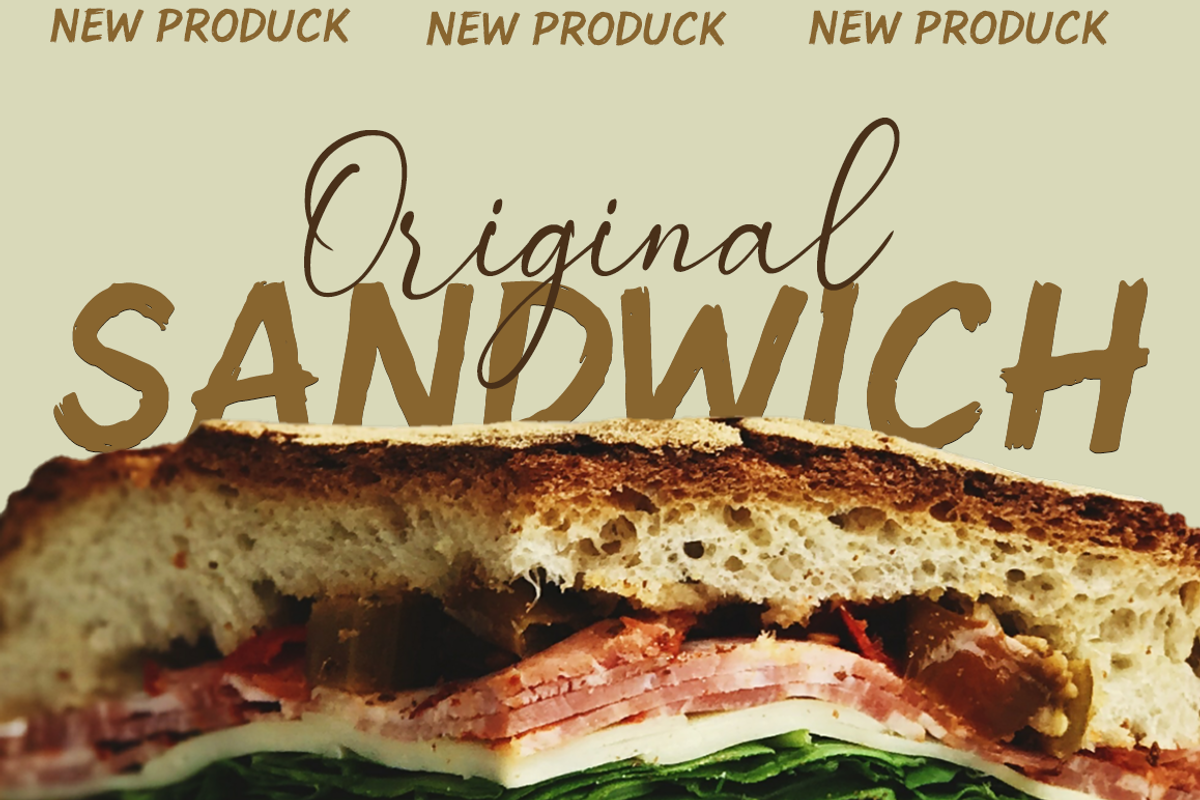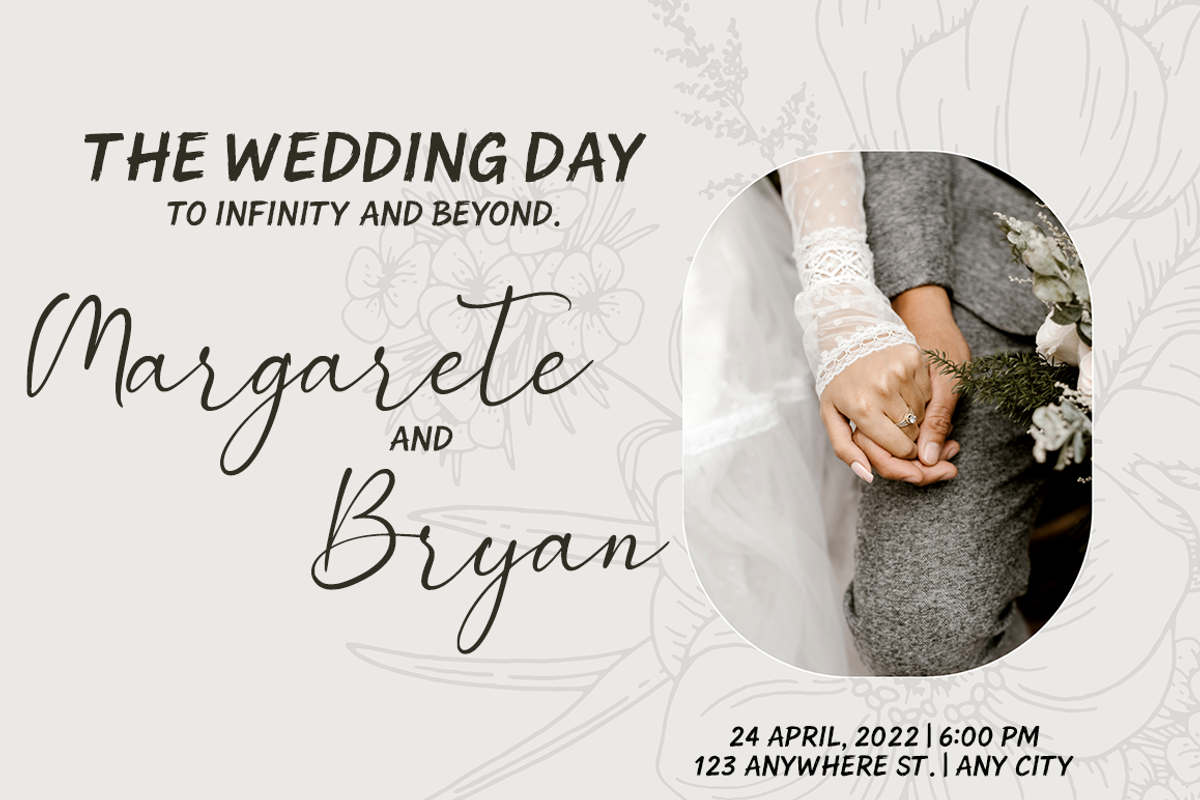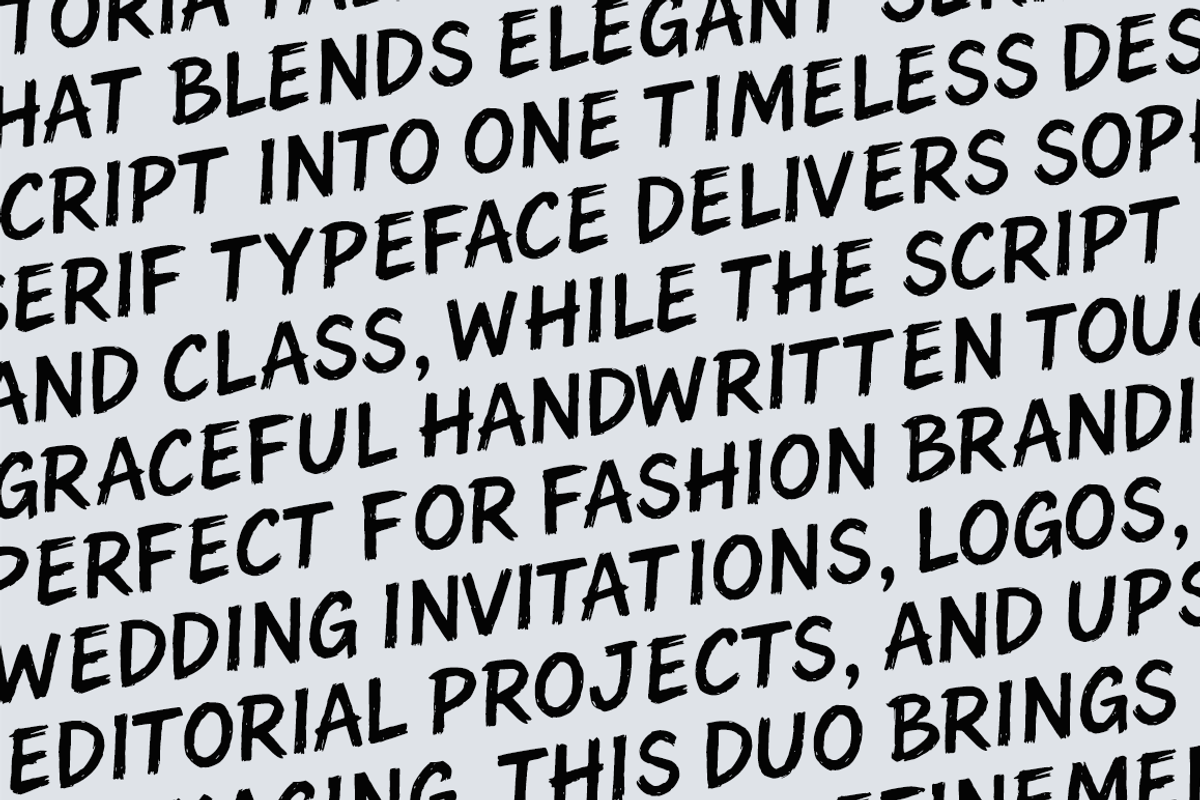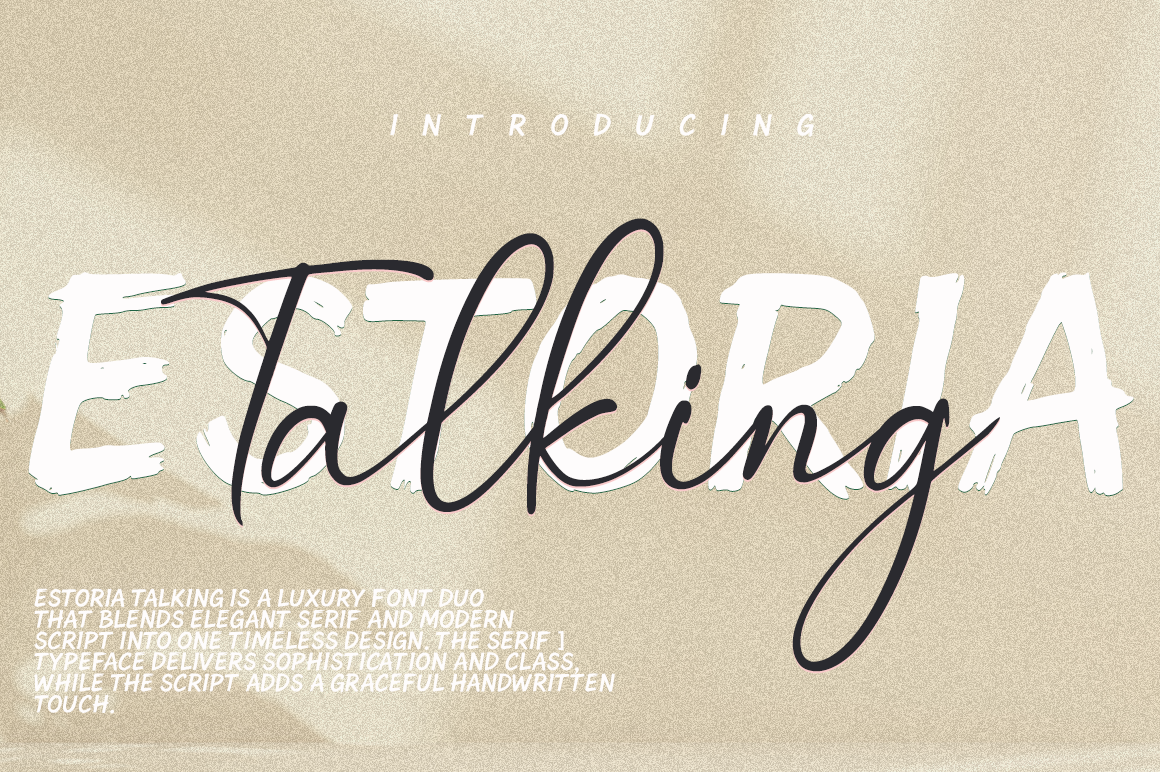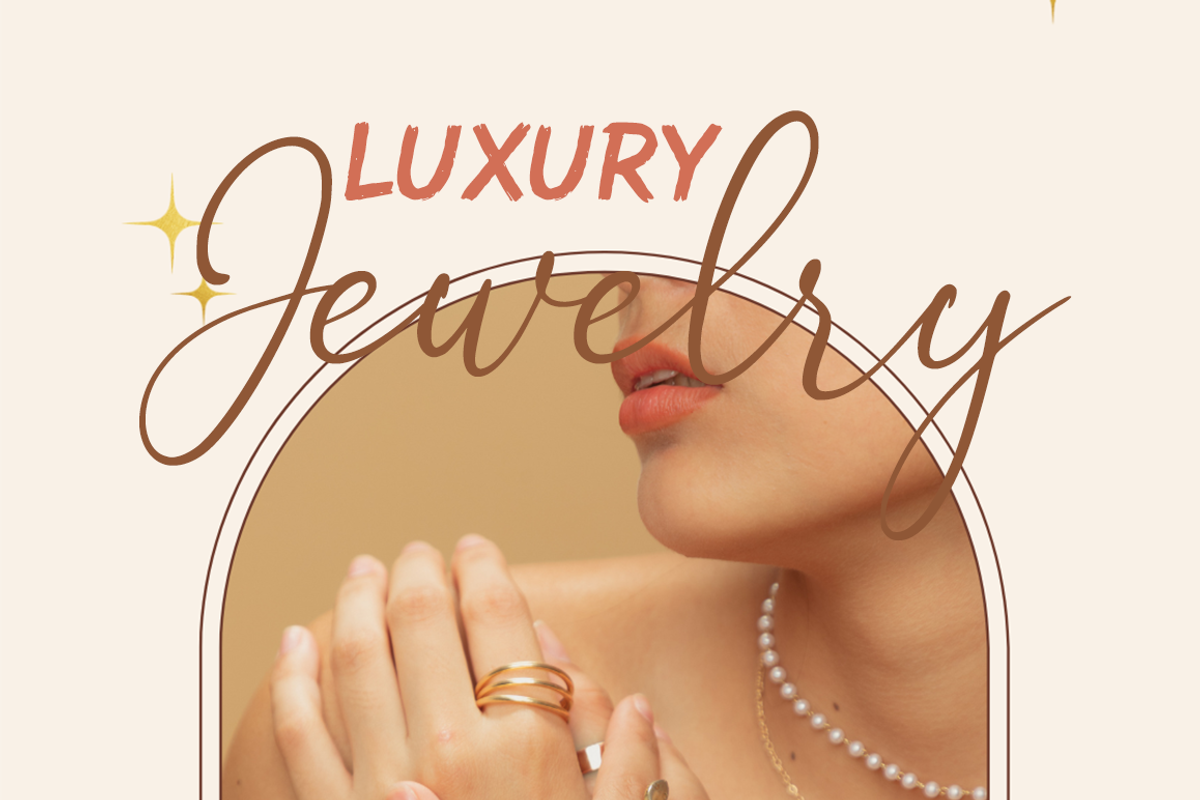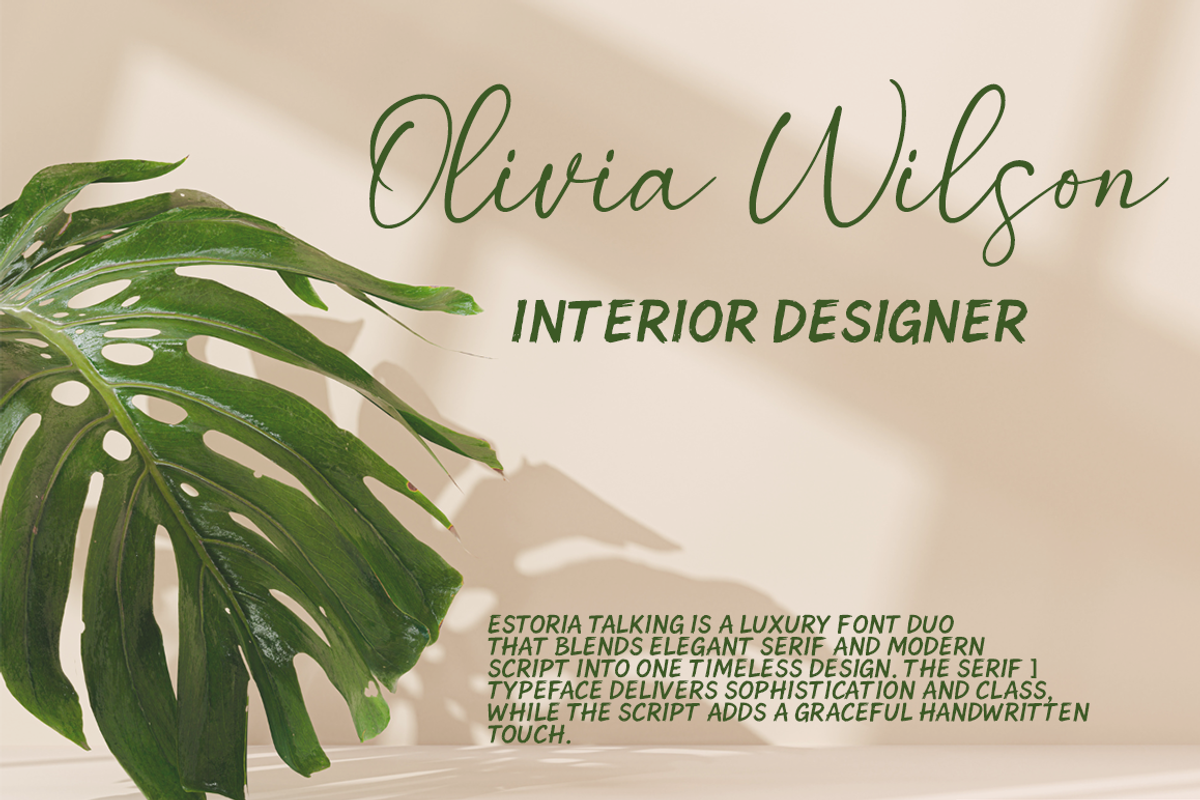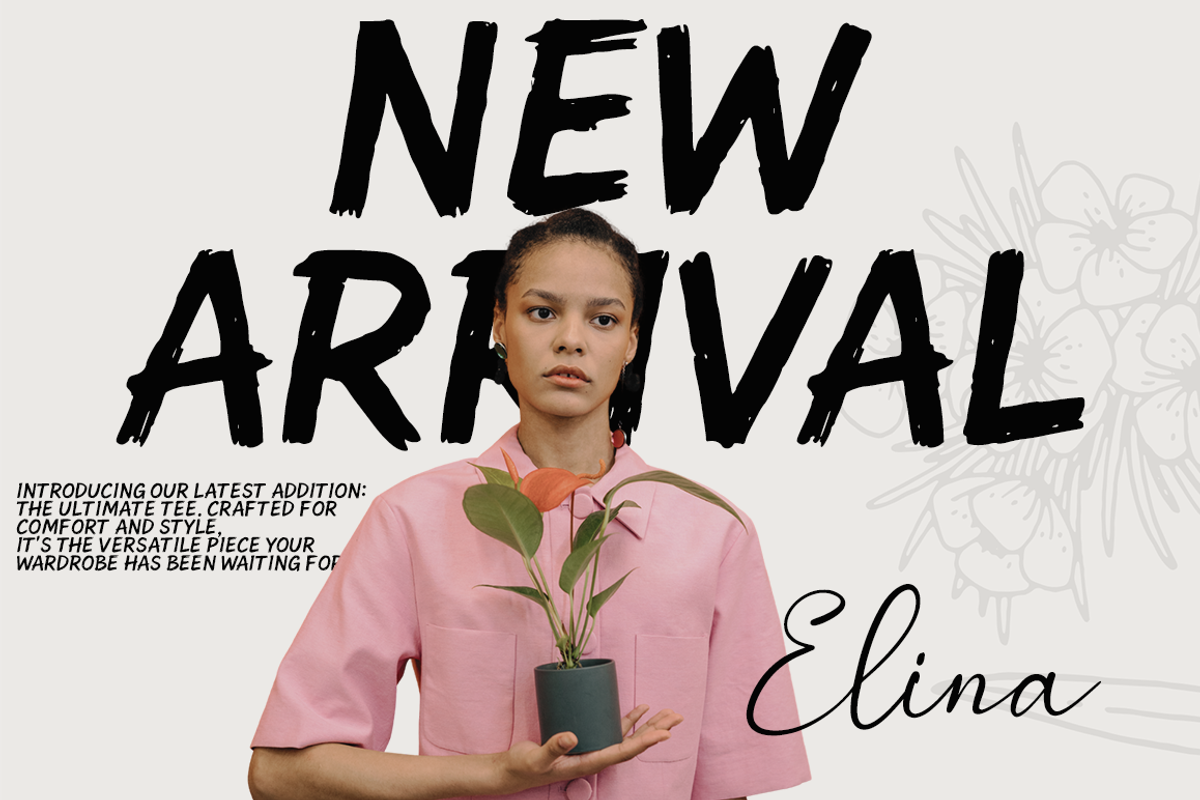
Estoria talking font duo
Estoria Talking is a luxury font duo that blends modern serif and elegant script into one timeless design. The serif style delivers strength and sophistication, while the script adds a graceful handwritten touch.
Perfect for fashion branding, editorial projects, packaging, wedding invitations, and logo design, Estoria Talking offers versatility for both bold titles and refined typography. Its balanced combination of classic and modern elements makes it a reliable choice for high-end creative work.